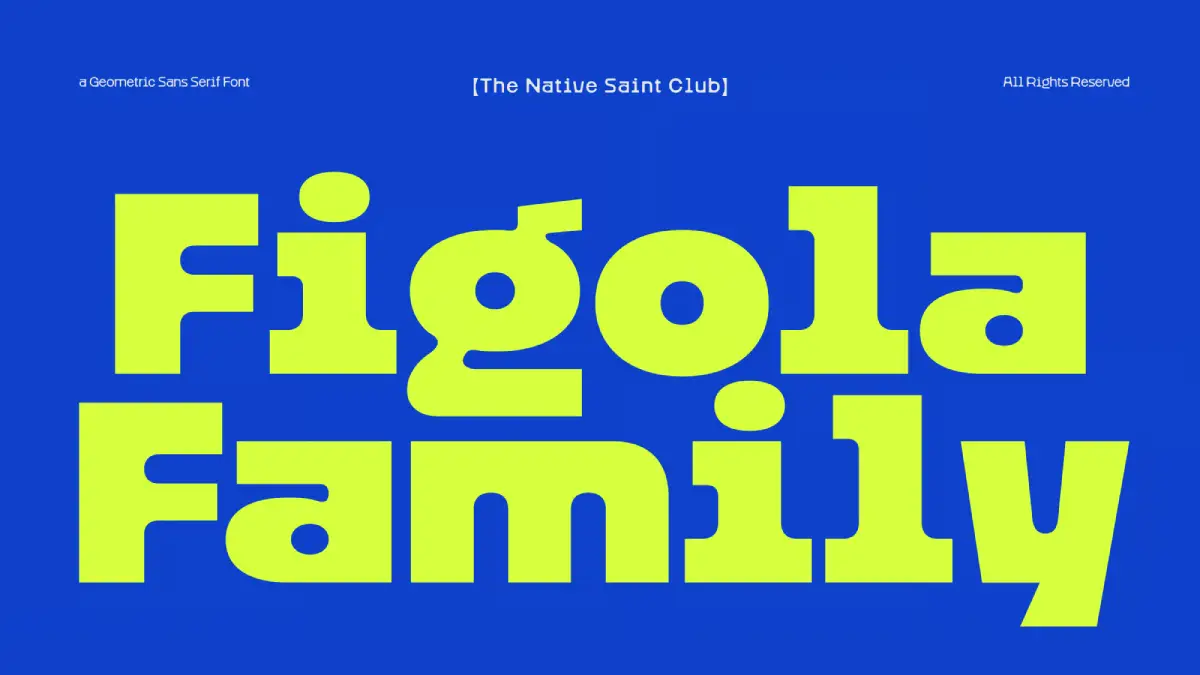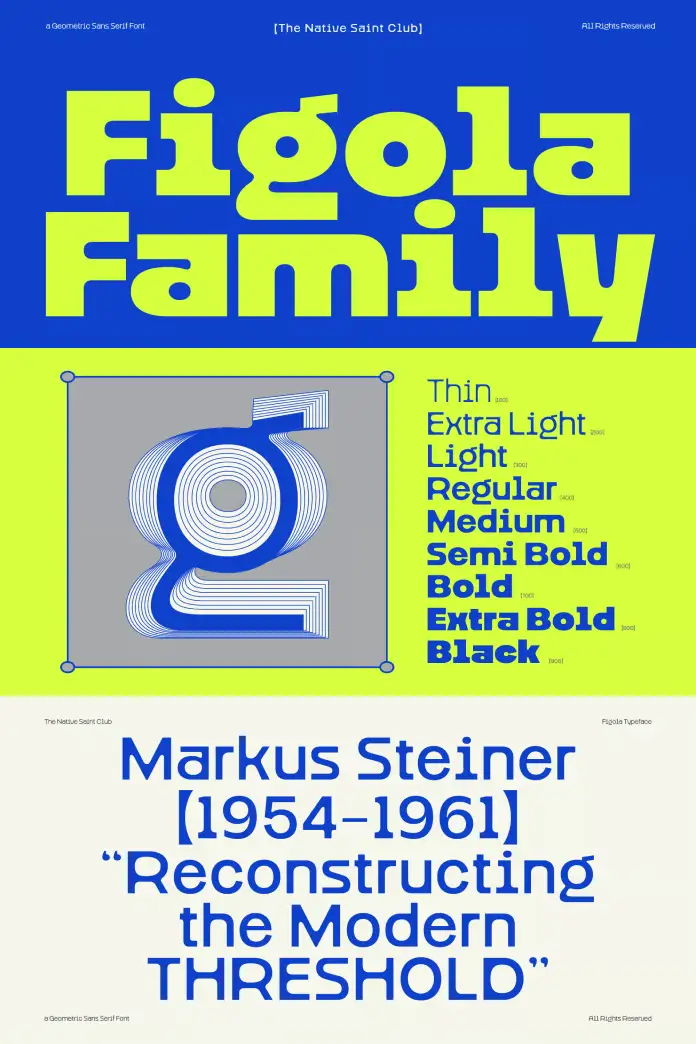
Typography dictates the emotional temperature of a brand. Bagas Ferdiansah and Septianto Nugroho understand this fundamental truth. Their collaborative creation, the Figola font family, represents a significant shift in geometric sans serif design. The Native Saint Club released this typeface to bridge the gap between strict geometry and human approachability. Designers often struggle to find a typeface that balances technical precision with warmth. Figola solves this specific problem through its unique structural DNA. You generally see either cold, rigid shapes or overly soft, humanist curves. However, Figola merges these opposing forces into a cohesive visual language. We call this specific phenomenon the Figola Tension, a term we use to describe its balanced dual nature.
What makes the Figola font family unique in modern design?
Designers prioritize versatility above almost everything else. The Figola font family delivers this through a massive spectrum of nine distinct weights. You can utilize everything from a delicate Thin to a commanding Black. This range allows for precise control over the visual rhythm of your page or screen. Consequently, you can build entire design systems using only the Figola font family. It eliminates the need for pairing multiple typefaces to achieve hierarchy. The designers constructed the typeface with strong geometric forms that anchor the eye. Yet, they softened these forms with gentle curves to ensure readability. This combination creates a “soft-geometric” aesthetic that works exceptionally well on modern displays.
The Architecture of Soft Geometry
We must analyze the specific framework behind this typeface. The Ftypeface utilizes what we term Curvature-Rigidity Synthesis. This framework means the font maintains a structural skeleton based on simple shapes. However, the stroke endings and joints possess a subtle softness. Therefore, the Figola font family feels approachable rather than mechanical. You will notice this specifically in the lower-case letters. The transitions in weight are smooth, yet the overall character remains distinct. This makes Figola a prime candidate for high-impact branding where personality matters.
Technical Specifications and Weights
Precision defines the technical build of this typeface. The Figola font family includes nine carefully calibrated cuts.
- Thin
- ExtraLight
- Light
- Regular
- Medium
- SemiBold
- Bold
- ExtraBold
- Black
This extensive range ensures you have the right tool for every context. The Thin weights of the Figola font family work beautifully for elegant, large-scale headlines. Conversely, the Black weights provide the punch needed for street-style posters and aggressive marketing. Furthermore, the typeface includes extensive glyph coverage. You gain access to essential features like circled numbers and multilingual support. These features are critical for global commercial projects.
How does the Figola font family perform across different media?
Context determines the success of any typeface. The Figola font family excels in both print and digital environments. Its geometric base ensures crisp rendering on low-resolution screens. Simultaneously, its subtle details shine in high-quality print. You can confidently use the typeface for editorial layouts where readability is paramount. The text flows naturally, and the Figola Tension keeps the reader engaged.
Modern UI and Digital Signage
User Interface (UI) design demands clarity. Figola offers excellent legibility at small sizes. The open counters prevent the letters from blurring together on mobile screens. Additionally, the font family works perfectly for digital signage and wayfinding systems. The clear distinction between characters reduces cognitive load for the viewer. Therefore, users can scan information quickly and accurately. We predict that the typeface will become a staple in app design over the next year.
Branding and Packaging Dynamics
Packaging requires a voice that speaks to the consumer. The Figola font family adapts its voice based on the selected weight. A luxury beauty brand might use the Light cuts for a sophisticated look. In contrast, a sports energy drink could utilize the Black version for maximum impact. Figola allows for this flexibility without losing brand consistency. Designers at The Native Saint Club ensured that every curve serves a purpose. Consequently, your packaging will stand out on crowded shelves.
Mastering the Glyphs: A User’s Guide
Professional designers need more than just basic letters. The Figola font family provides a rich set of OpenType features. You can access specific characters like circled numbers directly through professional software. Specifically, you should use the Adobe Illustrator Glyphs Panel to find these hidden gems. Alternatively, the Adobe Photoshop Character Open Type Panel grants you access. These features allow for creative list styling and decorative numbering. However, you must check the help file included with the font family first. It guides you through the full potential of the character set.